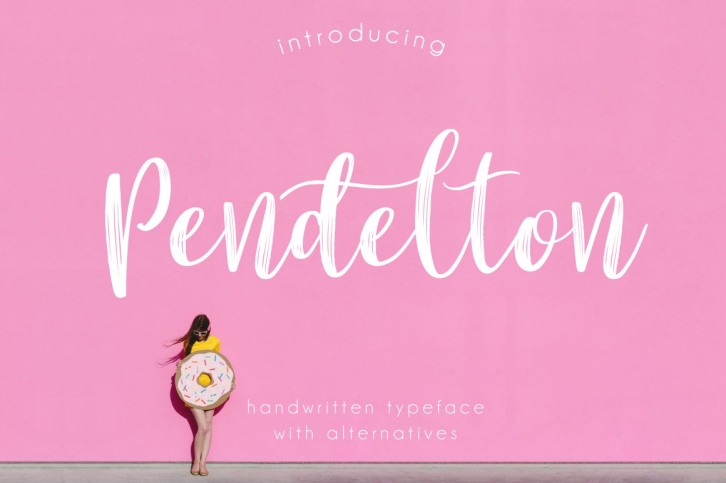
Pendelton Script is a great font that was designed by Mellow Design Lab. Imagine the amount of combinations you can create using this font! The archive is 9.23 MB and it was released on February 3, 2017. Pendelton Script looks beautiful on wedding invitations, greeting cards, logos, posters, labels, t-shirt designs, logos, business cards and is perfect for use in ink or watercolor works, fashion, magazines, packaging and food menus, children's books and more!